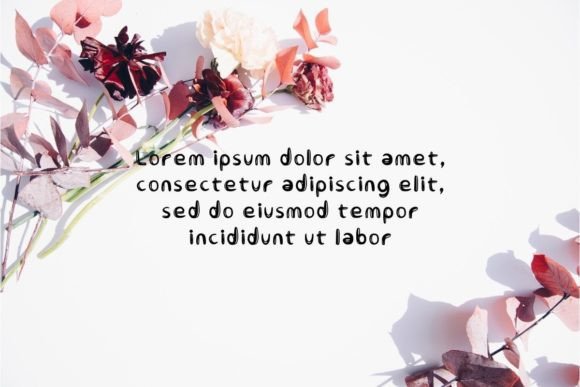
Introduction to Nendora Font
Have you ever found yourself stuck in a creative rut, scrolling through design inspiration boards, searching for that perfect touch to elevate your next project? I know I have. But then, it hits you – a spark of creativity that sets your heart racing and your imagination running wild. For me, it was discovering the enchanting Nendora Font.
With its whimsical, handwritten feel, the Nendora Font is a treasure trove for designers looking to add a touch of romance and femininity to their work. Whether you’re crafting greeting cards, designing wedding invitations, or simply seeking a unique way to express yourself, this versatile script font is sure to captivate your audience. And the best part? It’s available for free download, making it an invaluable resource for any designer looking to take their creative project to the next level.
So, let’s dive into the world of Nendora Font and explore its many uses, from high-quality design projects to everyday creativity. With its transparent background and high-quality design, this font is a must-have for any designer looking to add a touch of magic to their work.
Key Features of Nendora Font
- High-quality design resource ideal for creative projects, with a unique and elegant style.
- Perfect for designers and artists working on creative projects, including digital art, graphic design, and typography.
Honest Review: Nendora Font
I recently stumbled upon the Nendora Font and I must say it’s been a game-changer for my design projects. This font is a fantastic design resource that I highly recommend.
What works well: ✨ The Nendora Font is incredibly versatile, suitable for both digital and print-based creative projects. Its unique design style makes it perfect for adding a touch of elegance and sophistication to any project. I particularly love how it looks with a transparent background, really makes the text pop.
- High quality font with detailed character set
- Perfect for creative projects requiring a unique touch
However, I did encounter a few limitations: ⚠️ The font doesn’t have as many language support options as I would have liked, and some of the characters can be quite thin, making them harder to read at smaller sizes.
Overall, I’m thoroughly impressed with the Nendora Font. It’s a fantastic addition to my design library and I’m sure I’ll be using it for many creative projects to come.
The Nendora Font is perfect for various design projects, including logos, brochures, business cards, and social media graphics. It’s also ideal for creating presentations, documents, and posters.
To get the most out of the Nendora Font, experiment with different font sizes, colors, and styles to create unique and eye-catching designs. You can also combine the Nendora Font with other design elements to create a cohesive and professional look.